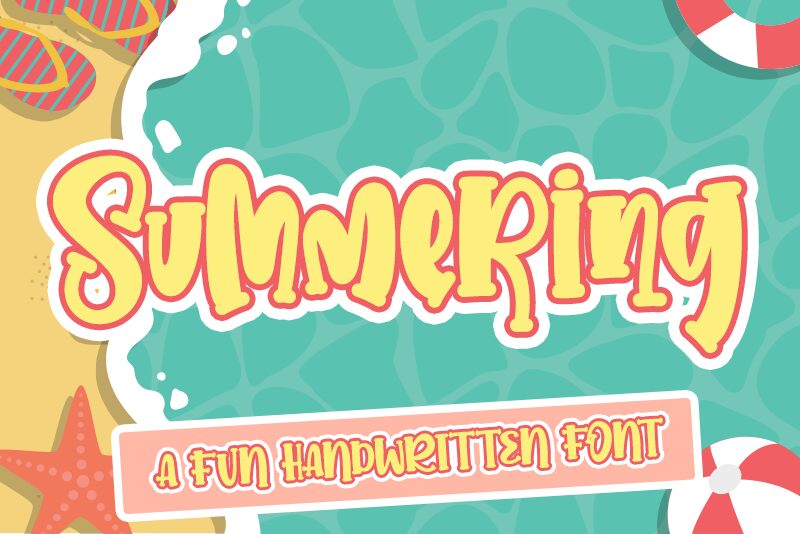
Dive into the playful charm of Summering, a delightful display font crafted by the talented hands at Letterara. With its cartoon-inspired style, this semi-light, semi-condensed typeface exudes a sense of joy and spontaneity that's hard to resist. Summering's well-rounded letters embody a casual elegance, making it not just a typeface but a true work of art.
Whether you're designing an enchanting children's book cover or spicing up your branding with a touch of whimsy, Summering brings out the best in your projects. Its fresh and friendly feel transforms any creative idea into an eye-catching masterpiece that speaks directly to the heart. From vivid invitations to dynamic social media graphics, let Summering be the voice of your most engaging and memorable designs.